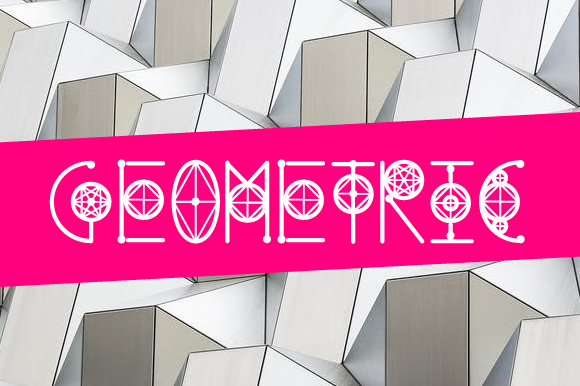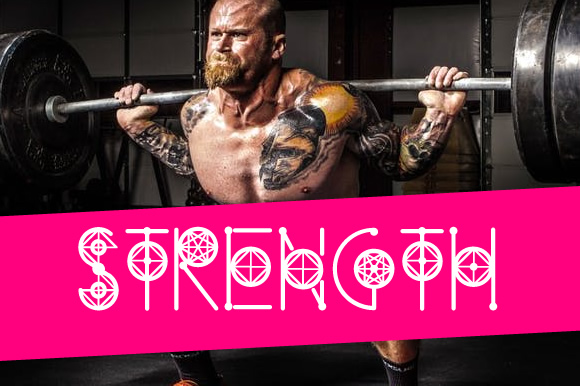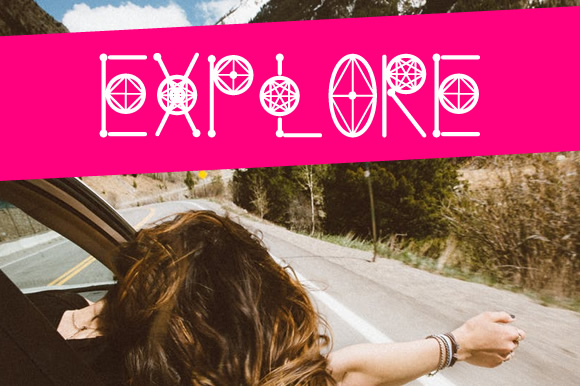
About Round Geometric Font
Round Geometric is a expressive decorated font created by Saqib Ahmad from blog.graphicspsd.com.
Every letter is carefully decorated which makes it a fun font to play around with.